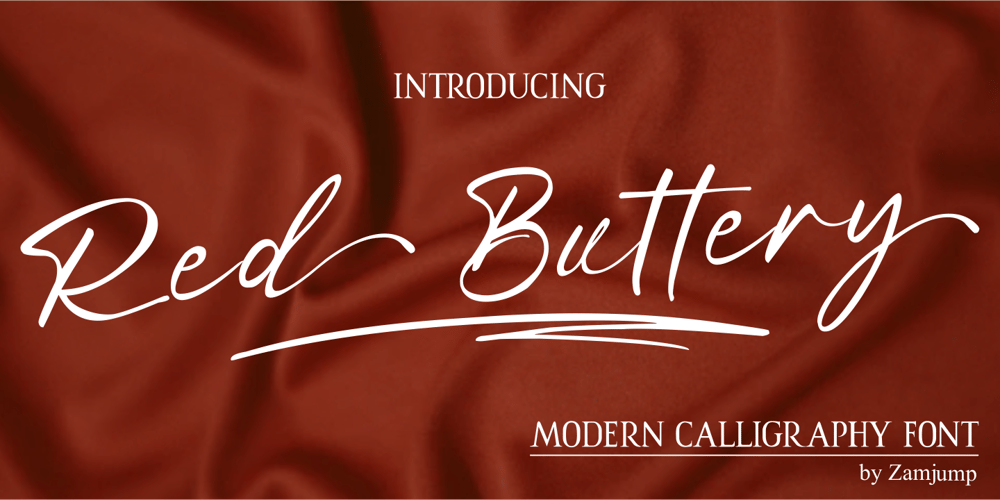
Red Buttery Font Family was designed by Zamjump and published by Zamjump. Red Buttery contains 1 styles and family package options. Red Buttery is a modern Calligraphy font. I hope this font is perfect to make signature logo branding and watermark for photography studio. wedding invitations, Magazine Covers, Classic themed scriptwriting,Red Buttery includes a full set of upper and lower case hand letters, numbers, assorted punctuation marks. All lowercase letters include start and end strokes, providing a realistic handwriting style.Note : To use beautiful strokes, you need a program that supports OpenType features such as Adobe Illustrator CS, Adobe Photoshop CC, Adobe Indesign, and Corel Draw. but if your software doesn’t have Glyphs panel, you can install additional font swash file:if you have any questions please give us a short messagethank youZamjump Studio